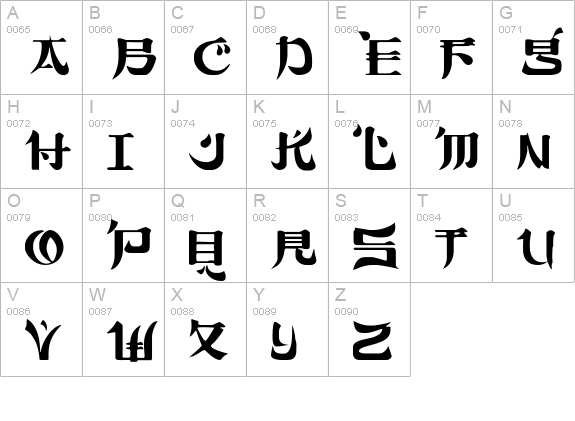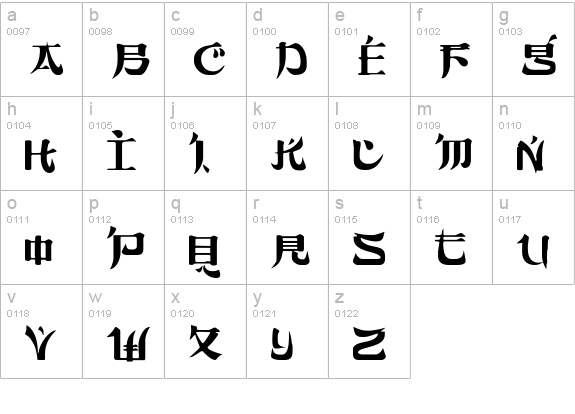
Sumdumgoi Font Details
Sumdumgoi font is a charming and versatile typeface that is perfect for adding a touch of whimsy to your design projects. With its playful curves and unique style, Sumdumgoi font is sure to make your text stand out. This delightful font is available in a variety of weights and styles, making it suitable for a wide range of design applications. Best of all, Sumdumgoi font is completely free to download at FontsMarket.com. Whether you're working on a personal project or a professional design, this font is a fantastic choice that won't break the bank. Download Sumdumgoi font today and add a touch of fun to your next project!